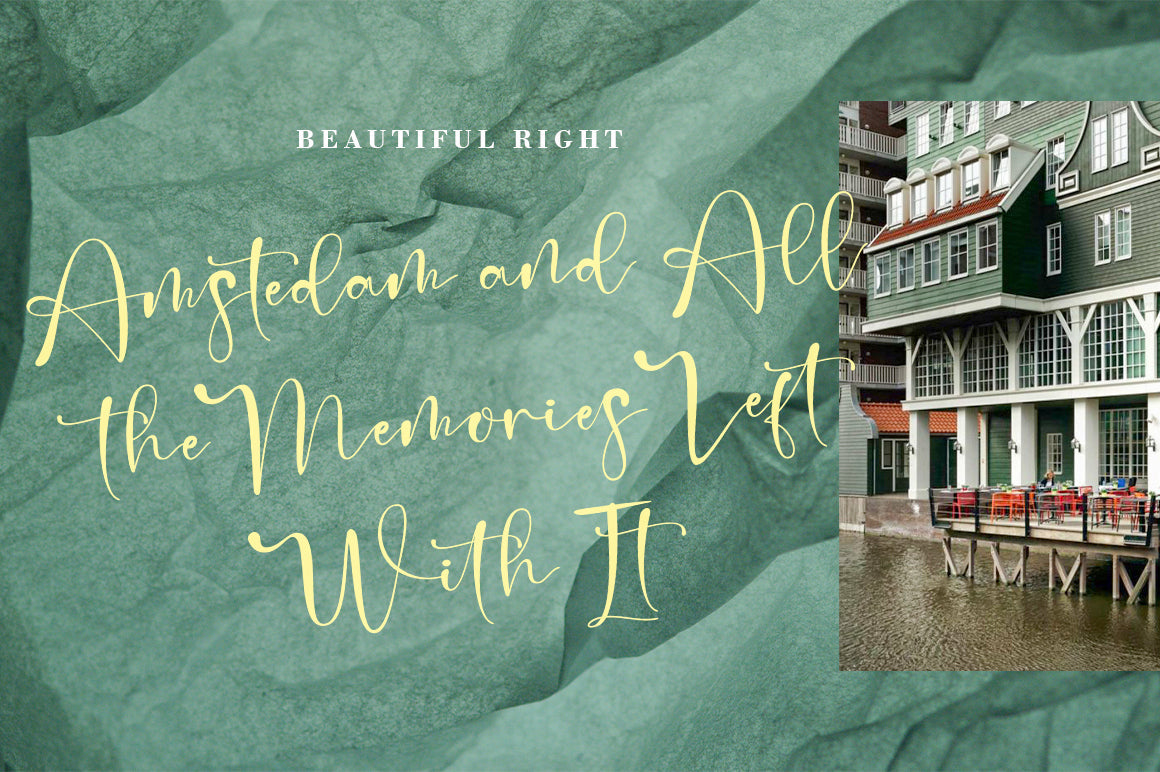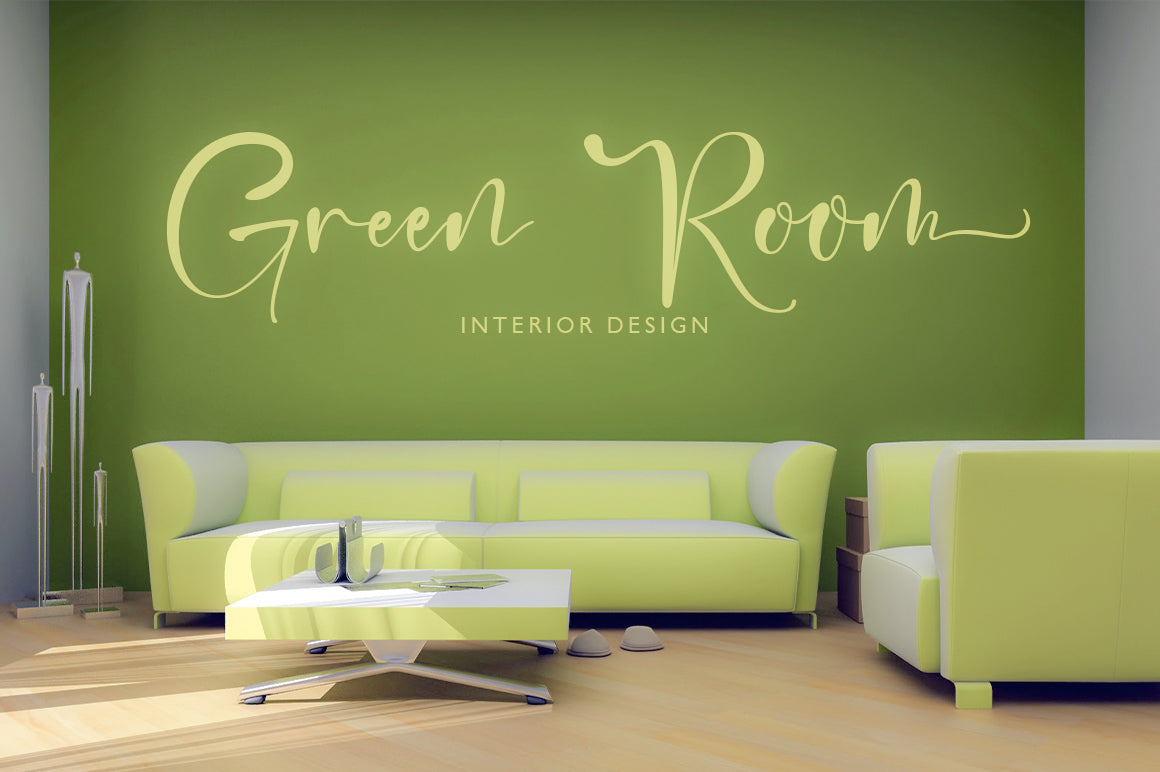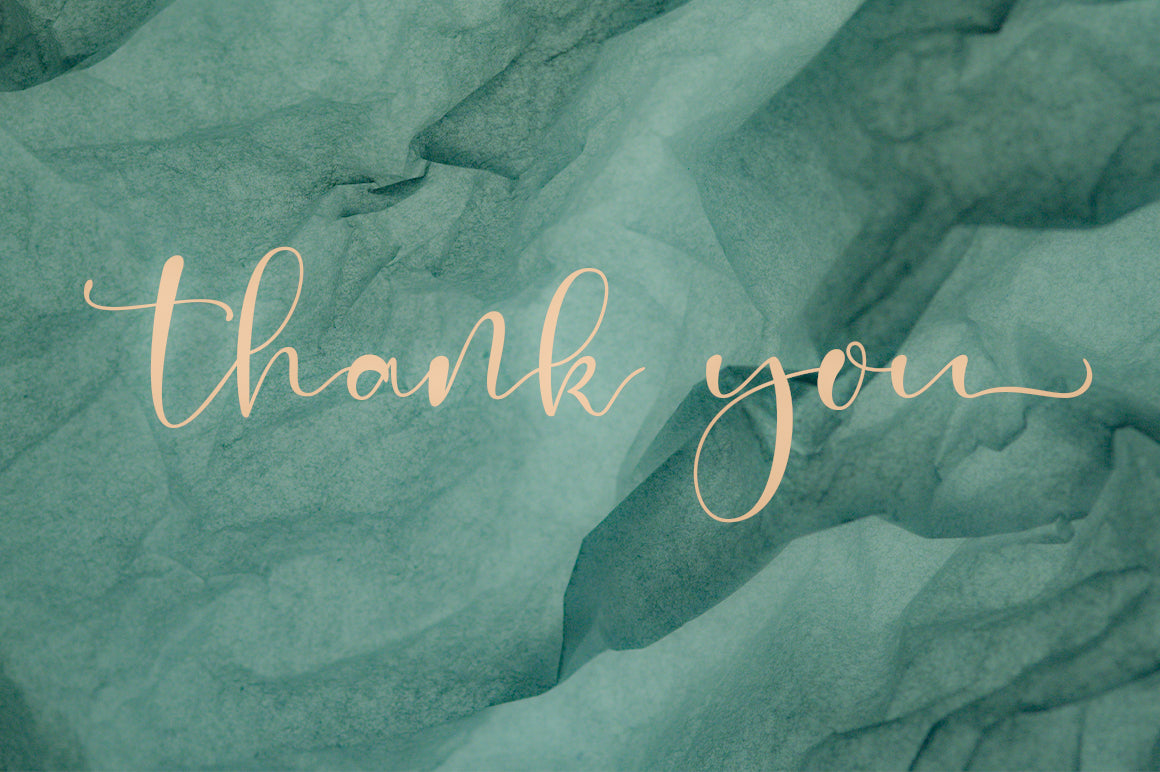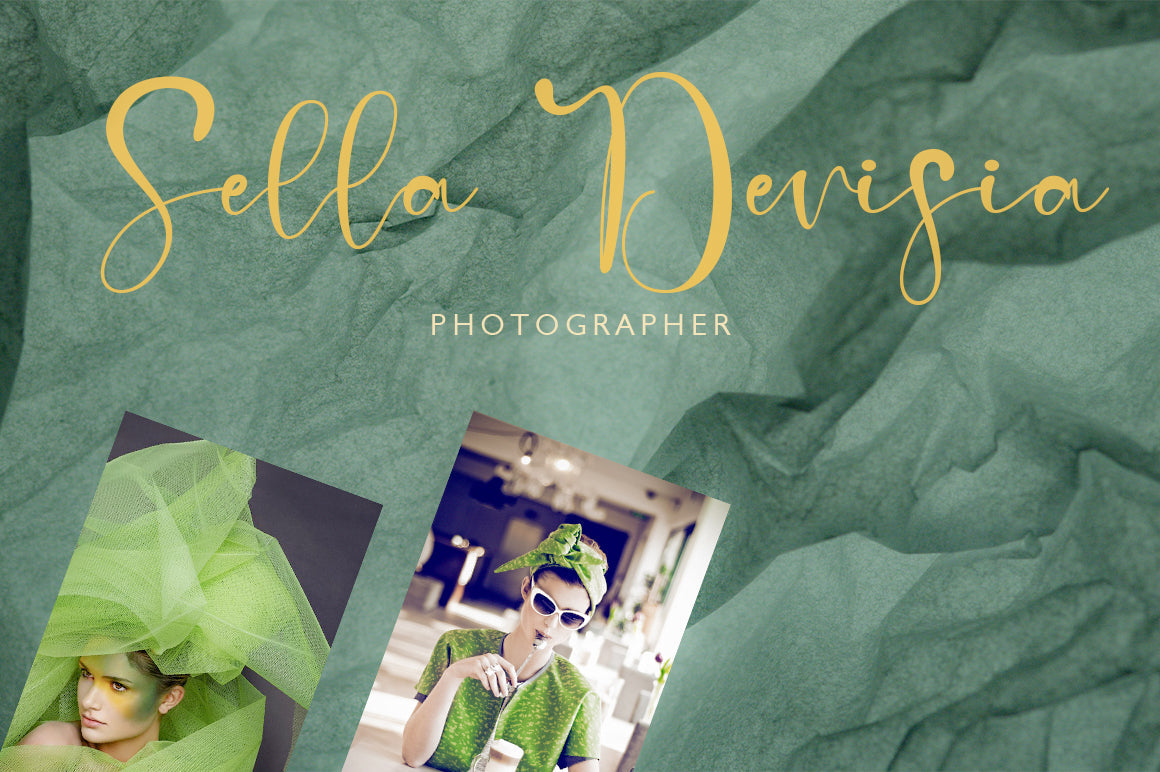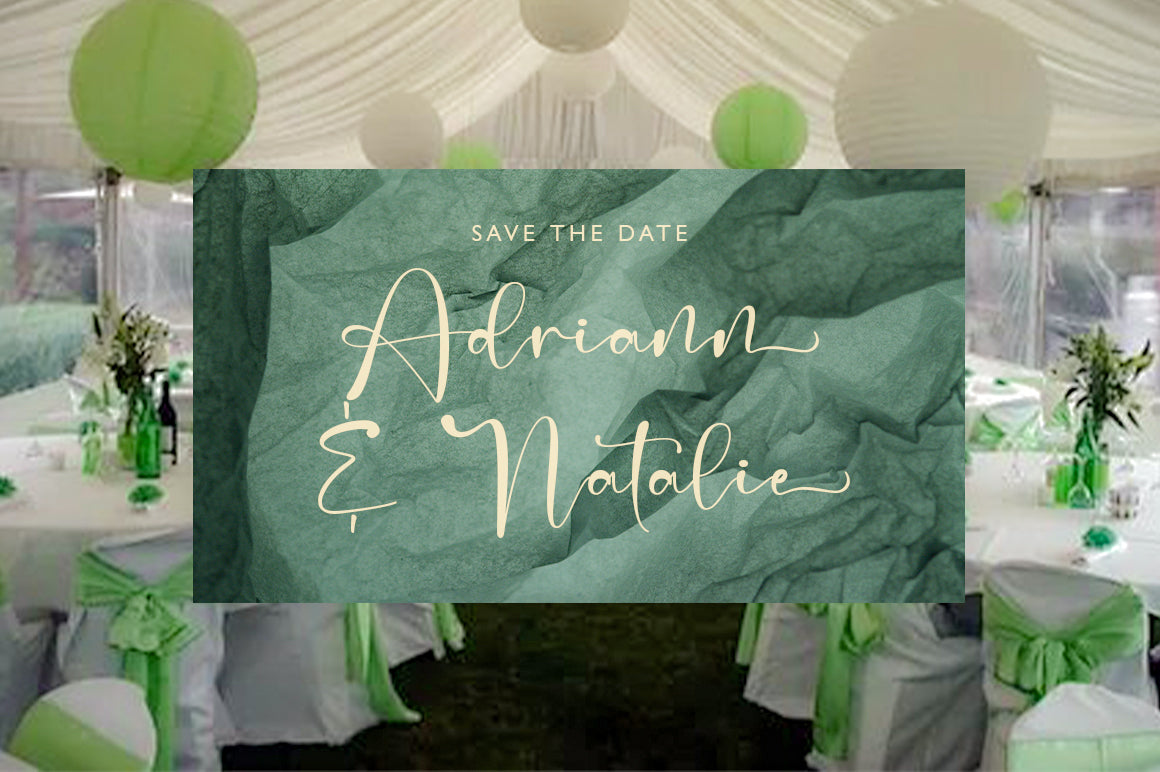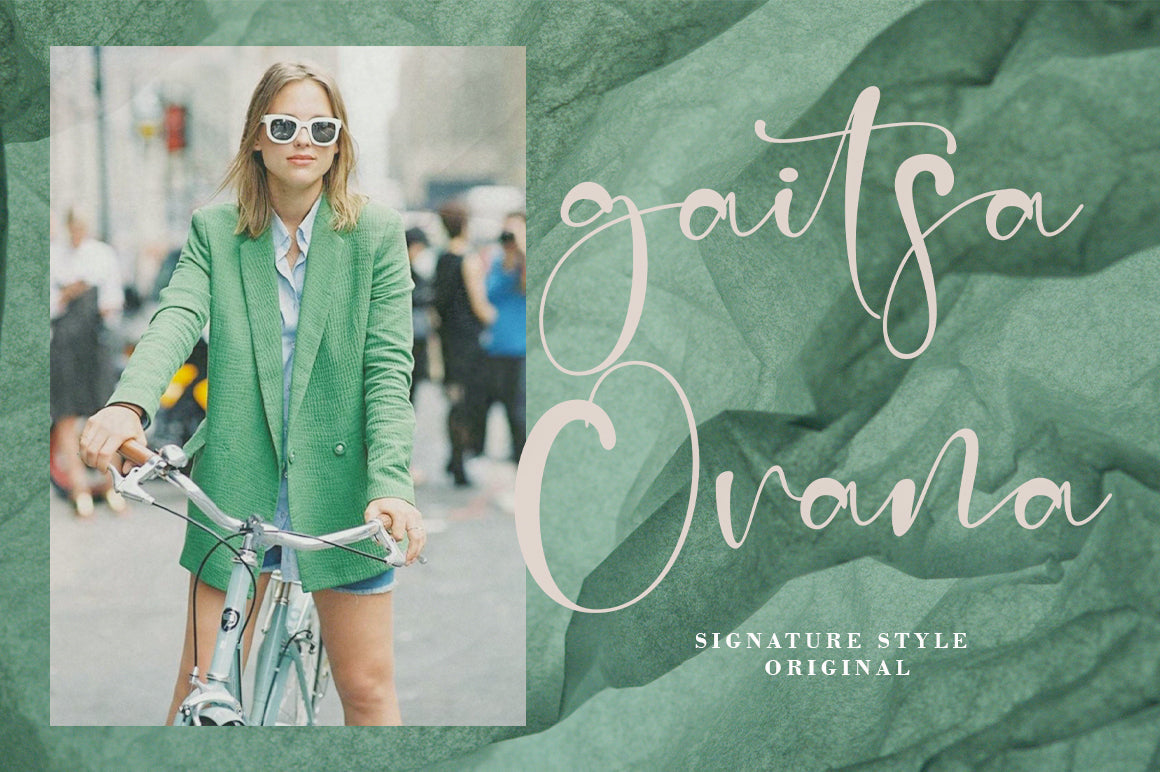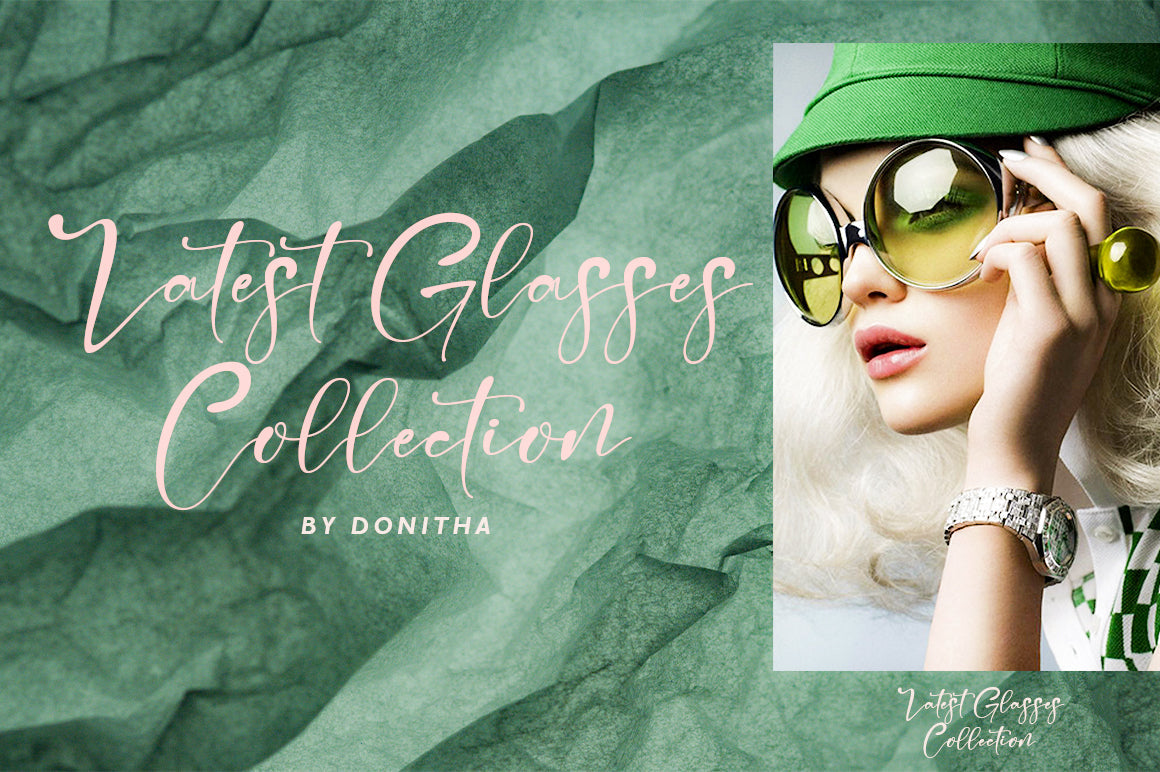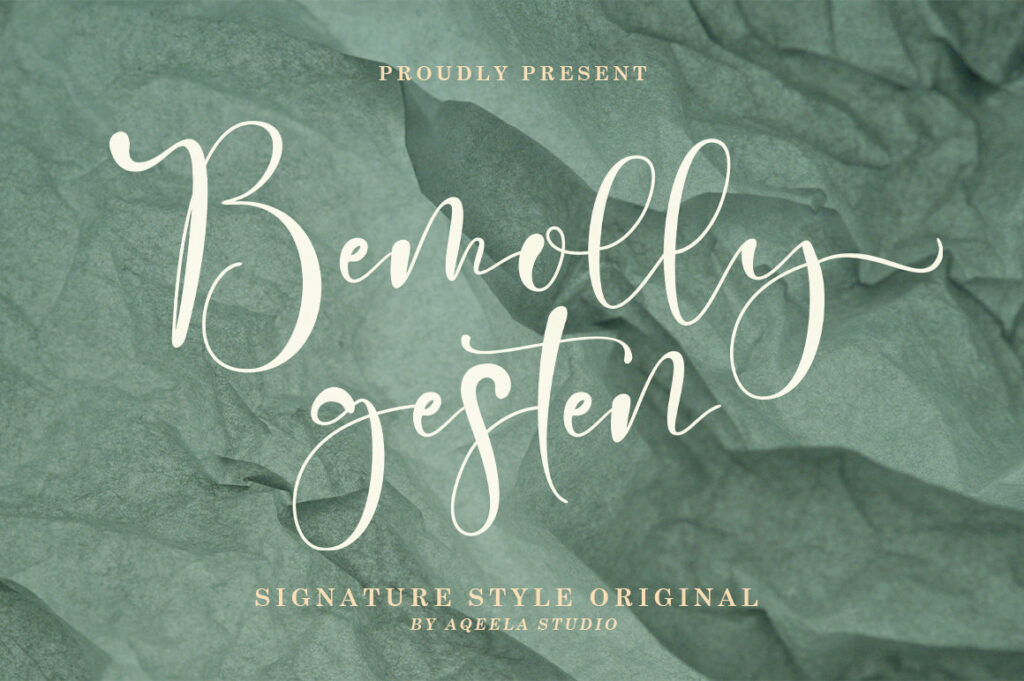
Bemolly Gesten
About Bemolly Gesten
Bemolly Gesten is a stylish handwritten font that is very elegant and unique. It looks stunning on wedding invitations, thank you cards, quotes, greeting cards, logos, business cards and any other design that requires a handwritten touch. This font is PUA encoded which means you can access all the glyphs and sweeps easily!